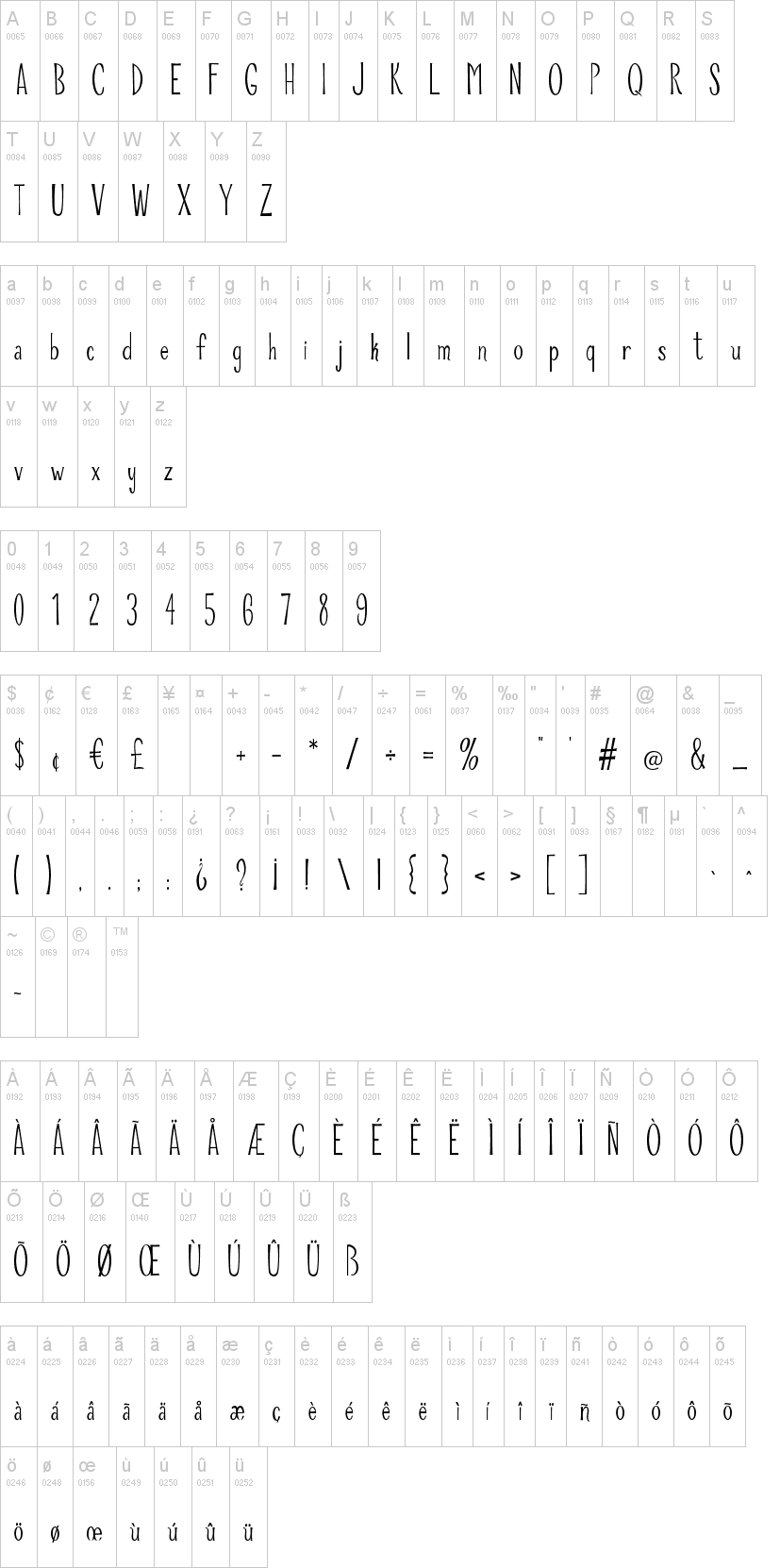
Inspired by the cover of Frank Sinatra and Nelson Riddle LP "Only the Lonely". Harold Lohner from HAROLDFONTS gave me a hand on this one about back in 2000. Thanks Harold. A few years later, it finally has uppercases, numbers and punctuations. The spiky letters are kept but under alternative letters on OTF. When I was creating the uppercases for the script version, a series of non-script letters kept popping up in my head. I could not help it, so now you have 2 for 1 deal. This font is free for non-commercial use and donationware for commercial use. Make a donation through PayPal my account there is: